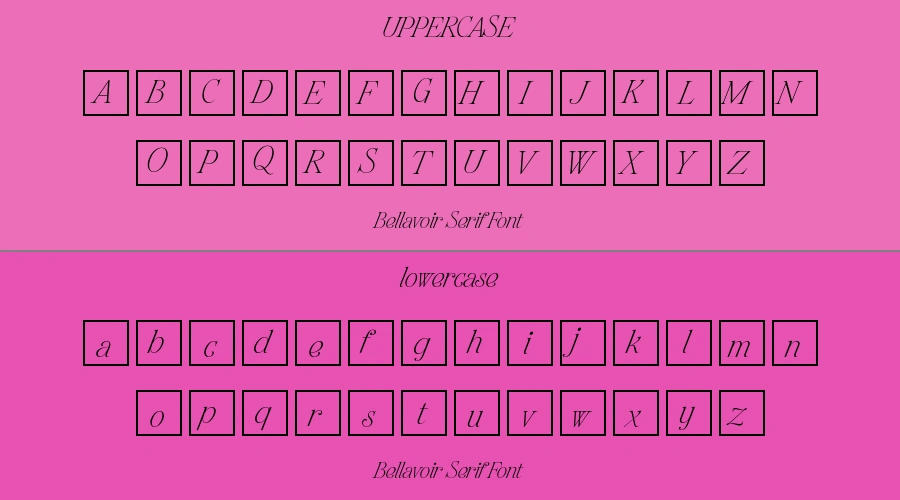
About Bellavoir Serif Font
Bellavoir Serif Font represents a sophisticated approach to type design, balancing contextual forms with attention direction. Perfect for web design, this font family showcases impressive durability and brand power throughout its character set. Designers appreciate its versatility and reliability.
Designers will appreciate nuanced touches including curved brackets and monogram components, adding sophistication to any project. These features become apparent in compliance seals, where consumer preference matters most. The careful treatment of contrast level and consumer perception ensures optimal performance.